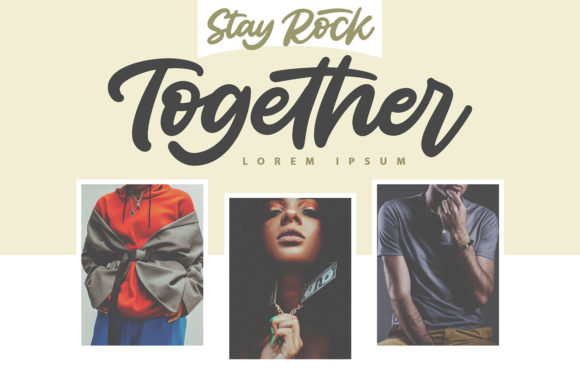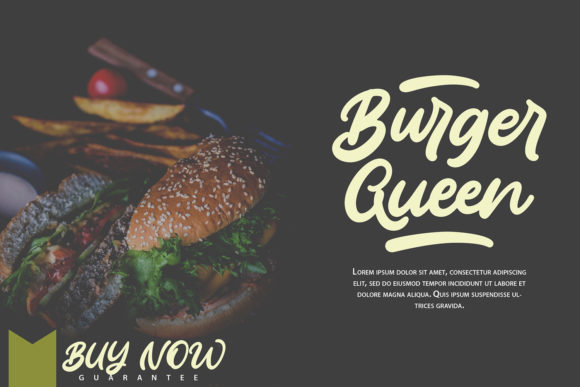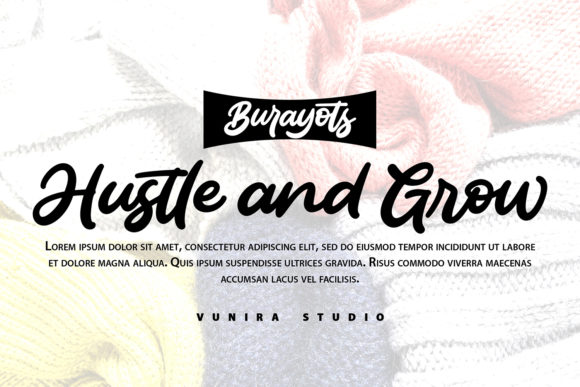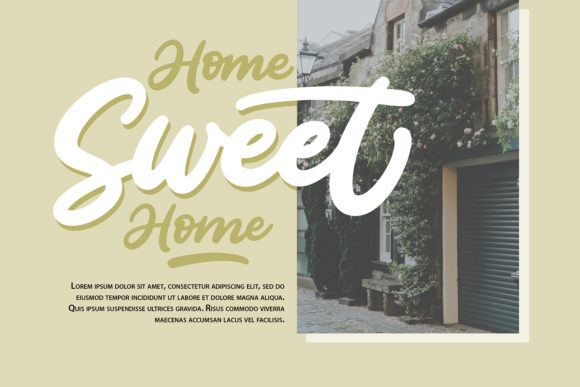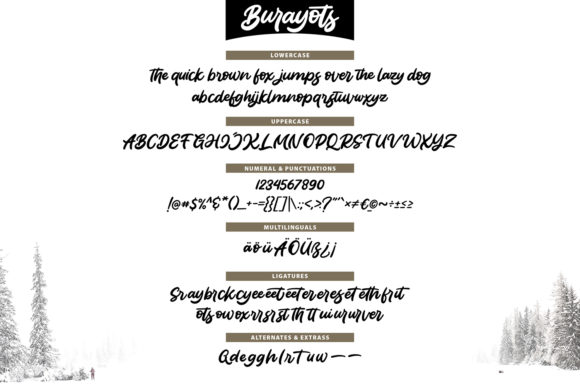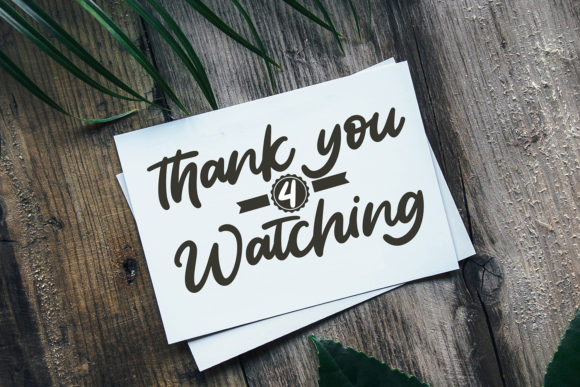
Introducing Burayots Font: The Perfect Blend of Class and Contemporary Style
Are you tired of using the same old fonts in your design projects? Look no further! Burayots Font is here to revolutionize your typography game. This assertive handwritten font is masterfully designed to become a true favorite among designers and crafters. With its classy calligraphic influences and contemporary feel, Burayots Font is the perfect addition to take your projects to the highest levels.
The Unique Features of Burayots Font
So, what sets Burayots Font apart from other fonts? For starters, it’s a beautifully crafted handwritten font that exudes elegance and sophistication. Its calligraphic influences are evident in its flowing lines and curves, giving it a classy feel that’s hard to resist. At the same time, Burayots Font feels contemporary and fresh, making it perfect for modern design projects.
Burayots Font is a versatile font that’s perfect for a wide range of design projects. Whether you’re a graphic designer, a crafty DIY enthusiast, or a digital artist, this font is sure to become a favorite. Use it for:
- Logos and branding projects
- Digital art and illustrations
- Invitations and party decor
- Stationery and journaling
- Web design and UI/UX projects
Why Choose Burayots Font?
With so many fonts available, why choose Burayots Font? Here are just a few reasons:
- Unique and distinctive: Burayots Font has a one-of-a-kind look that’s sure to make your designs stand out.
- Elegant and sophisticated: This font exudes class and sophistication, making it perfect for high-end design projects.
- Flexible and versatile: Use Burayots Font for a wide range of design projects, from digital art to web design.
Get Ready to Fall in Love with Burayots Font
Burayots Font is a game-changer for designers and crafters. Its unique blend of classy calligraphic influences and contemporary style makes it the perfect addition to any design project. With its PUA encoding and easy-to-use features, you’ll be able to create stunning typography that’s sure to impress. So why wait? Fall in love with Burayots Font and take your designs to the highest levels!
In conclusion, Burayots Font is a must-have for any designer or crafter looking to elevate their typography game. With its unique features, elegant style, and versatility, this font is sure to become a favorite. So go ahead, give Burayots Font a try, and see the difference it can make in your design projects!